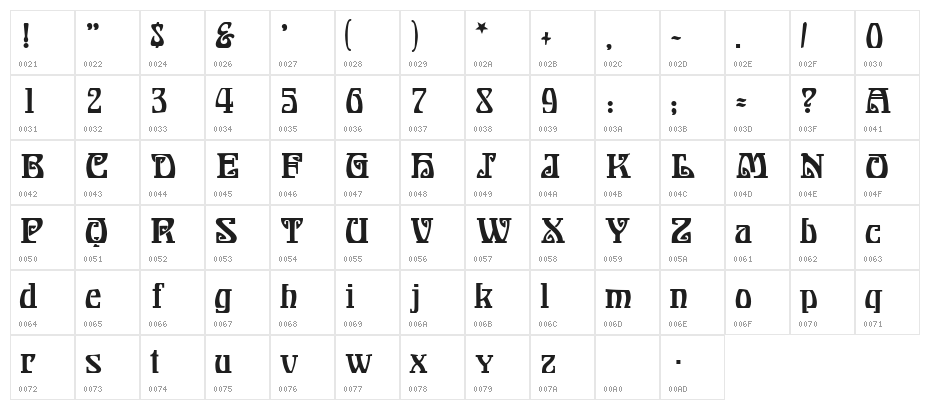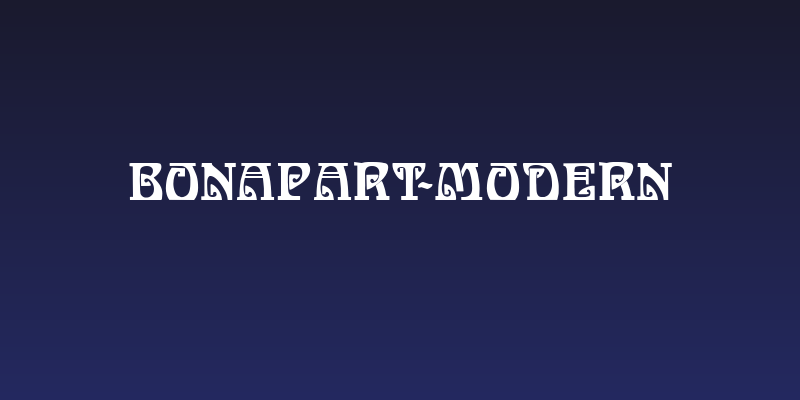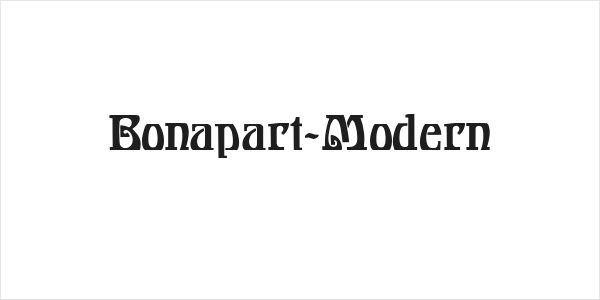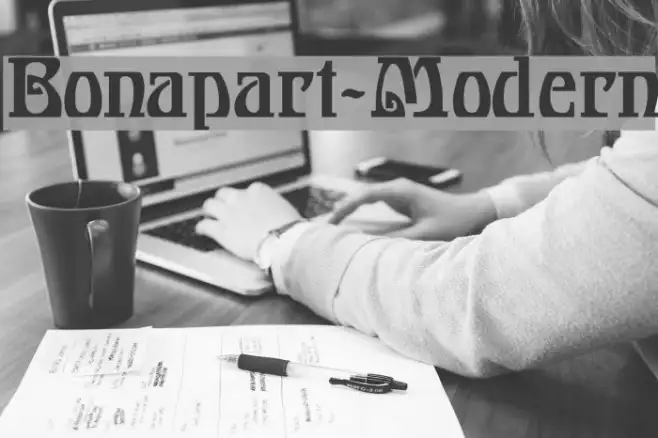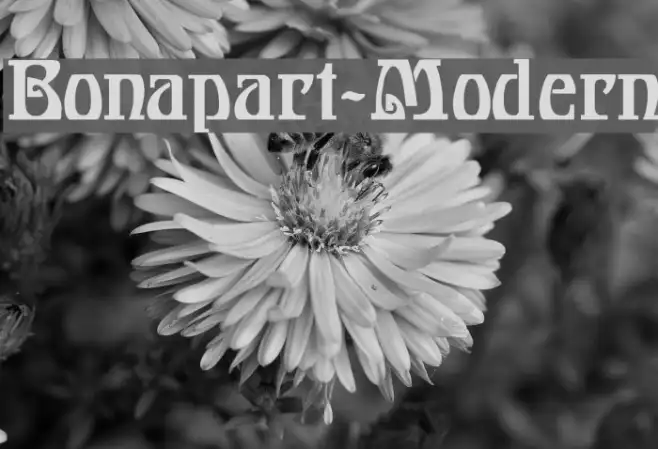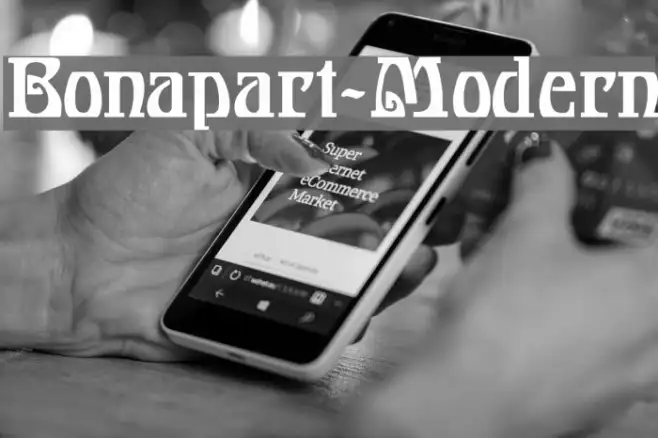
Bonapart-Modern Font
Bonapart-Modern Description
This font features a bold and decorative style with a modern twist. The uppercase letters are characterized by intricate, swirling details that add a unique flair to each character. The lowercase letters maintain a more traditional form but still carry subtle embellishments that enhance their visual appeal. The numerals are bold and consistent with the overall aesthetic, providing a strong presence. Special characters are creatively designed, maintaining the decorative theme. The font's distinct style makes it suitable for eye-catching designs and artistic projects.
| Proposed Projects | Ideal for posters, branding, album covers, and any project requiring a striking, artistic touch. |